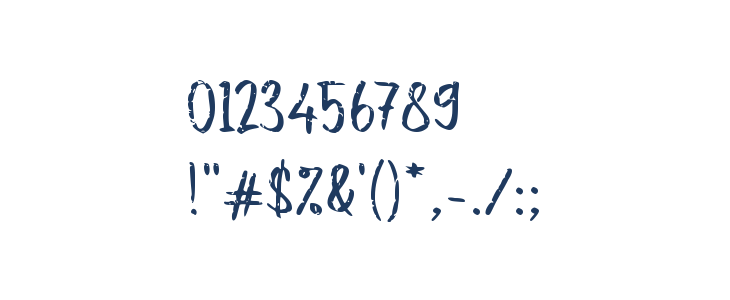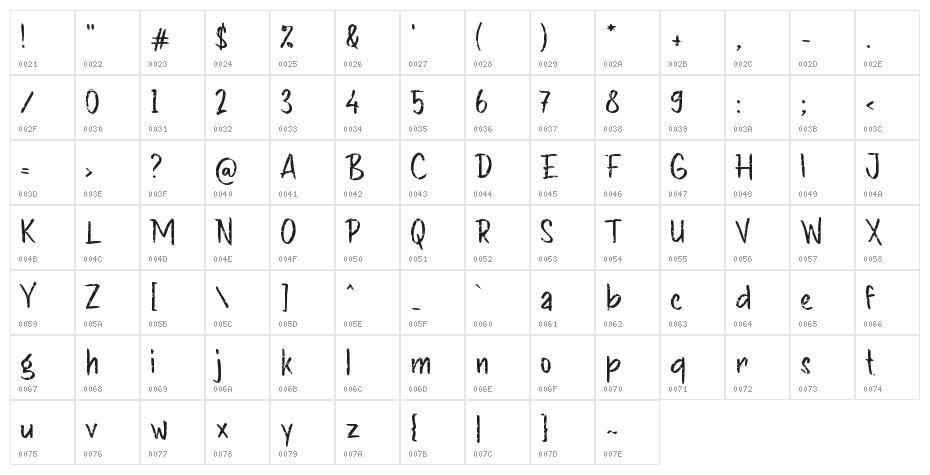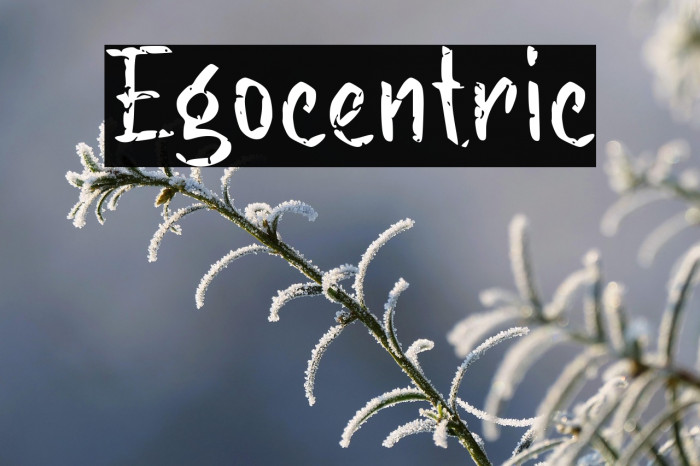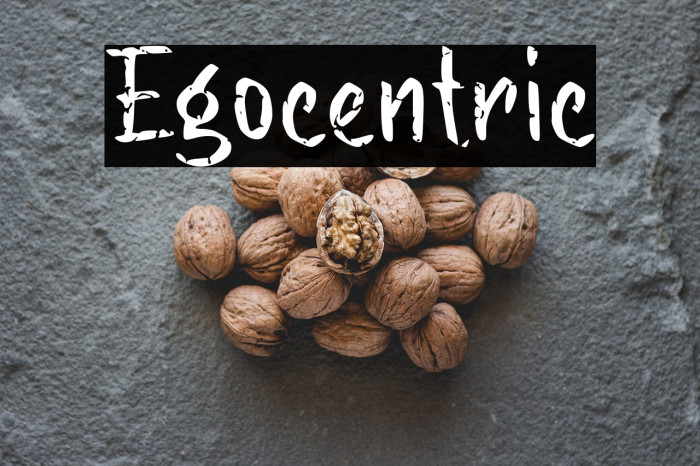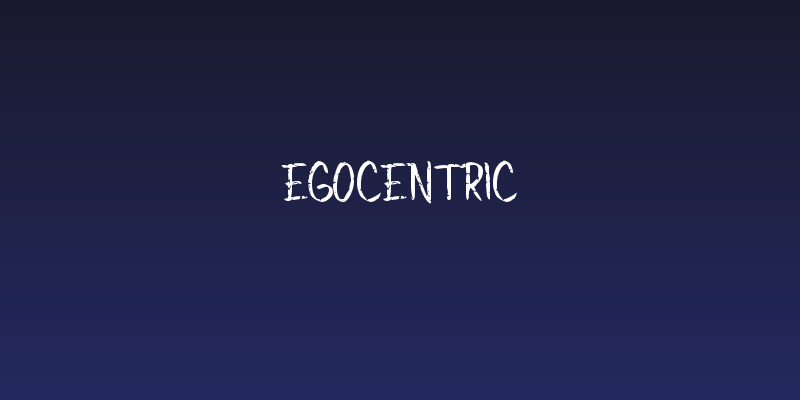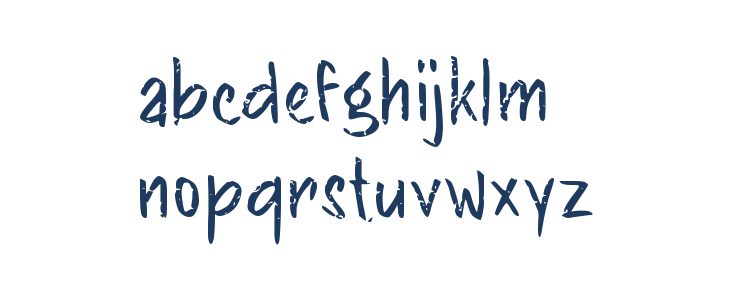
Egocentric Font
Egocentric Description
This font features a bold and expressive handwritten style with a rough, textured appearance. The characters are irregular and dynamic, giving a sense of energy and movement. The uppercase and lowercase letters maintain a consistent style, with each character exhibiting unique variations that add to the font's charm. The numbers and special characters are equally expressive, making them suitable for creative and artistic projects. The overall look is informal and playful, perfect for designs that require a personal touch.